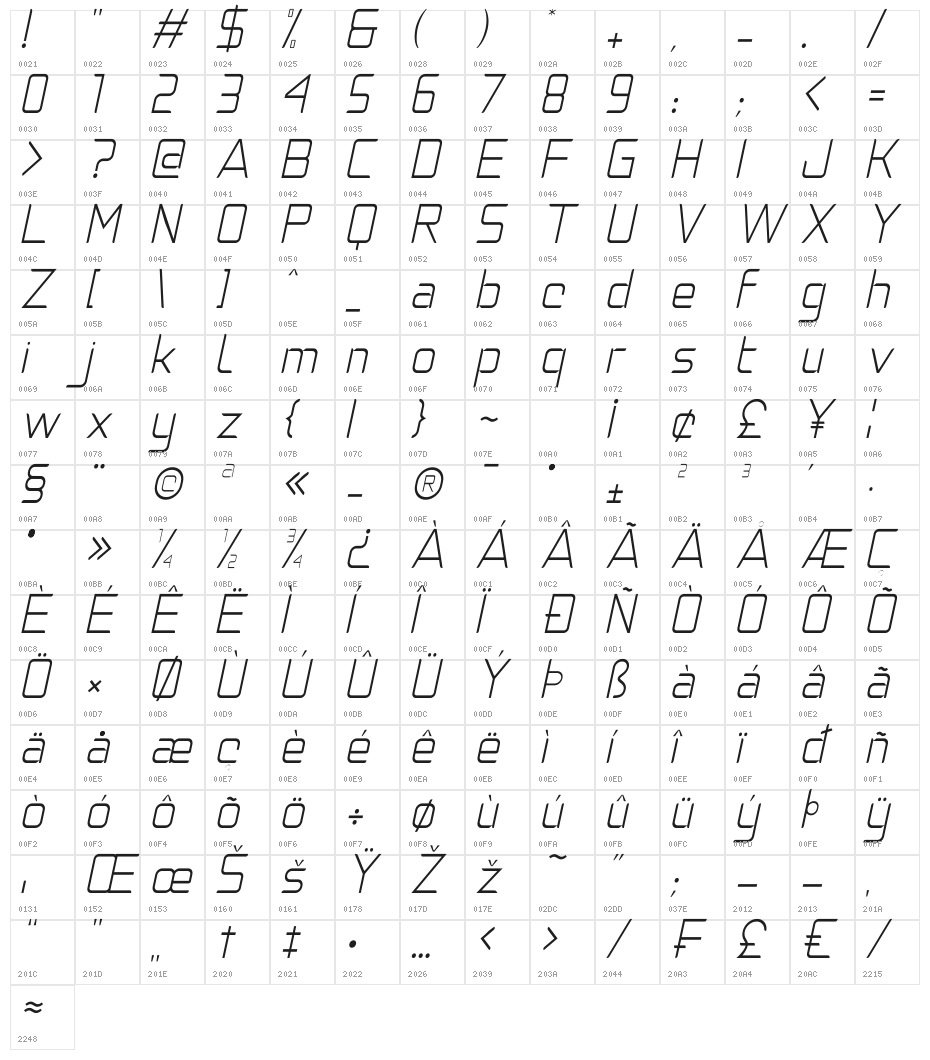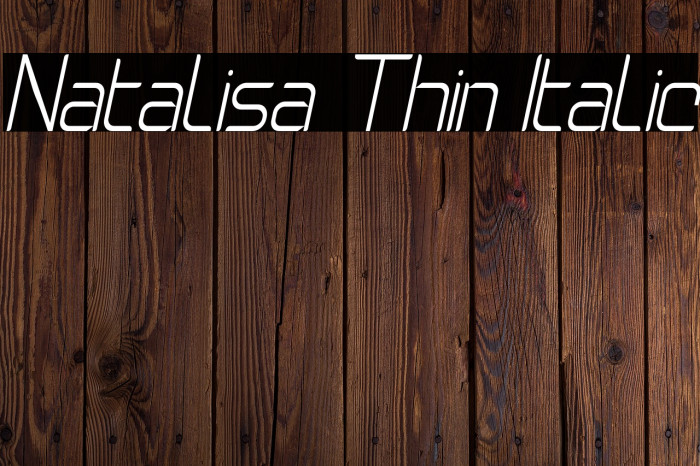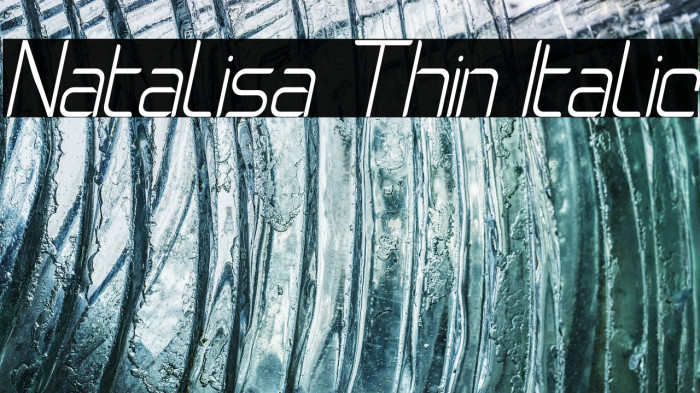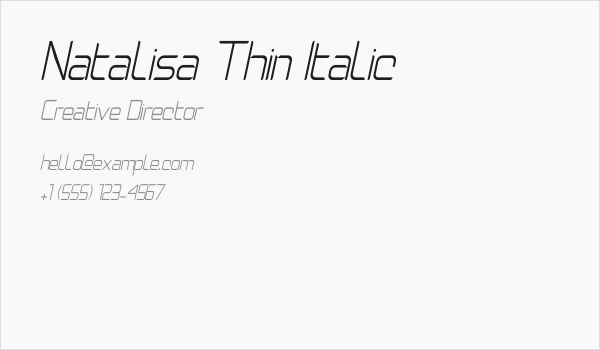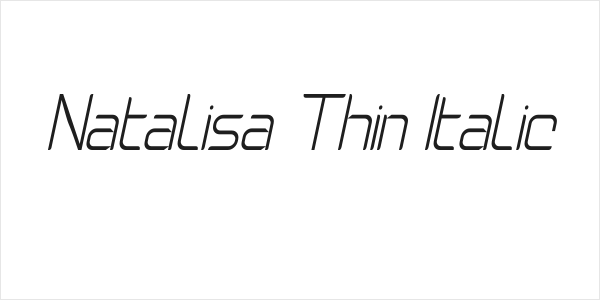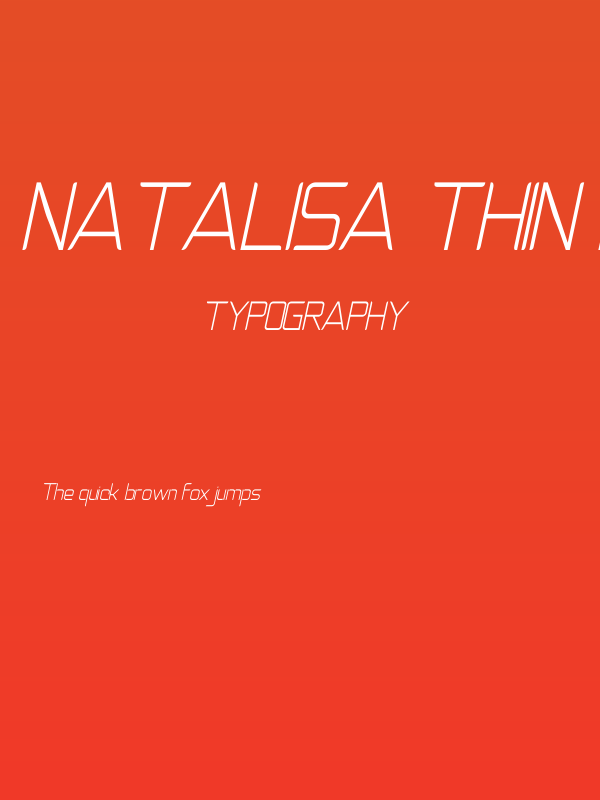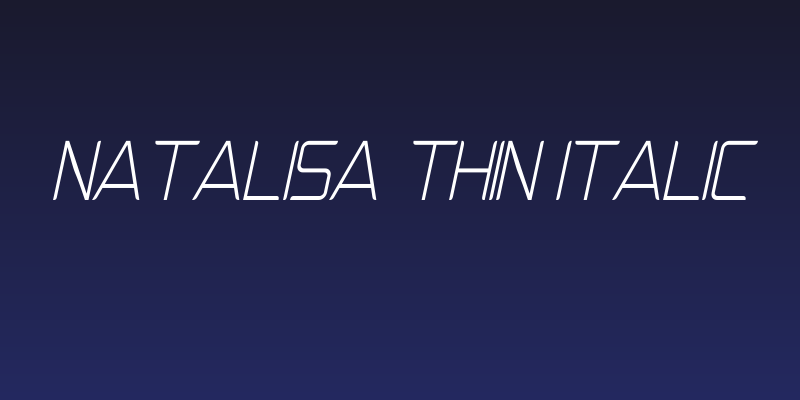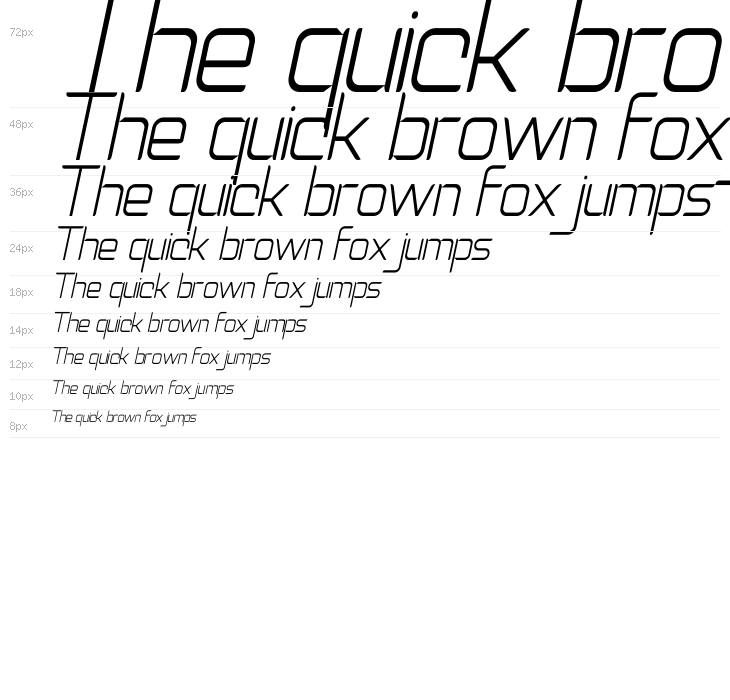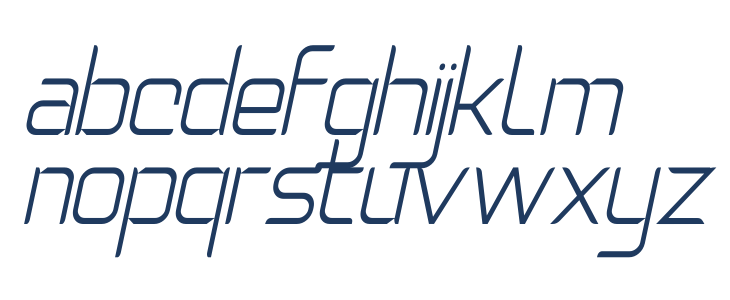
Natalisa Thin Italic Font
Natalisa Thin Italic Description
This font exhibits a sleek and modern design with a thin, italicized style. The characters are elongated and slightly slanted, giving a sense of motion and elegance. The strokes are consistent in thickness, contributing to a clean and streamlined appearance. The uppercase and lowercase letters maintain a uniform height, enhancing readability. The numerals and special characters are designed with the same thin, angular style, ensuring a cohesive look across all text elements. This font's contemporary aesthetic makes it suitable for various design applications.
Natalisa